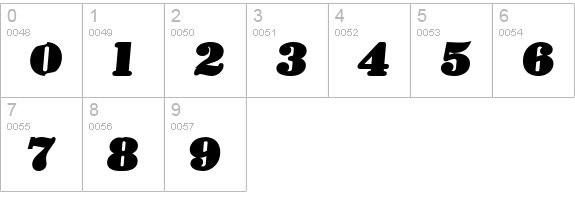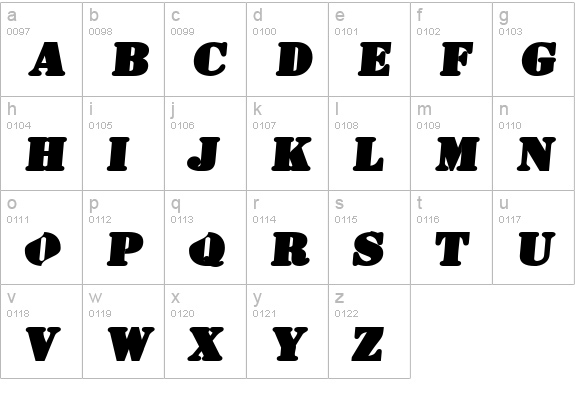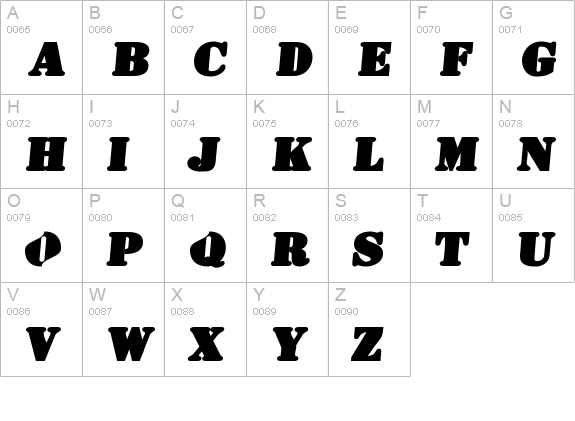
Gumballs Font Details
Gumballs font is a playful and whimsical typeface that exudes a sense of fun and lightheartedness. With its rounded edges and bubbly design, this font is perfect for adding a touch of charm to any project. Whether you're creating invitations, posters, or social media graphics, Gumballs font will bring a sense of joy and creativity to your designs. The best part? Gumballs font is completely free to download at FontsMarket.com. You can easily access this delightful font and start using it in your projects right away. So why wait? Add a pop of personality to your designs with Gumballs font today!